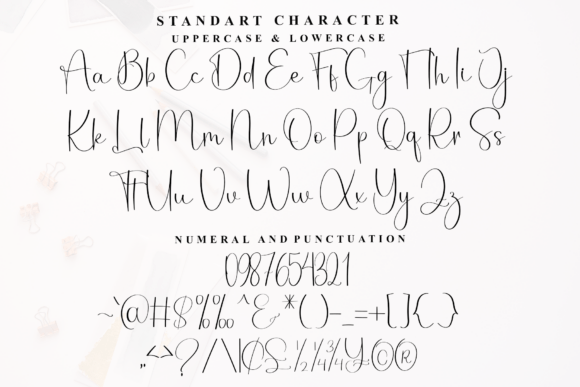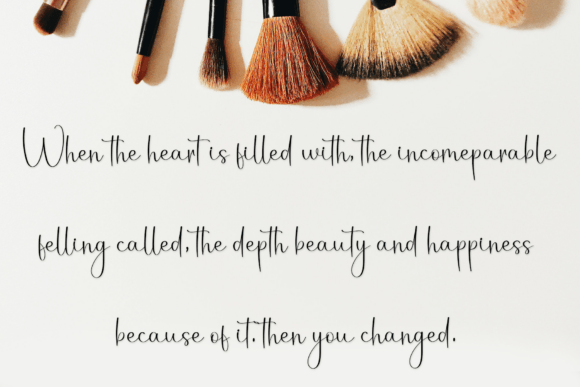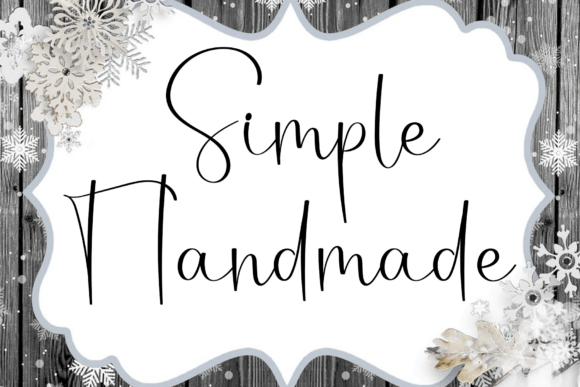
Introduction to Christmas Samantha Font Font
Fonts play a crucial role in design, and the Christmas Samantha Font font is a typeface that brings both character and versatility to any project. Whether you’re working on a branding project, a website, or a print design, the Christmas Samantha Font font offers a unique style that can elevate your work.
Christmas Samantha is a stylish and incredibly elegant script font.
It looks stunning on wedding invitations, thank you cards, quotes, greeting cards, logos, business cards and every other design which needs a handwritten touch This font is PUA encoded which means you can access all of the amazing glyphs and ligatures with ease.
Key Features of Christmas Samantha Font Font
Why Choose Christmas Samantha Font Font?
The Christmas Samantha Font font is more than just a typeface – it’s a design tool that helps you communicate your message with style and clarity. Its unique character set and versatile design make it suitable for a wide range of applications, from elegant invitations to bold headlines.
With its carefully crafted letterforms and balanced proportions, the Christmas Samantha Font font ensures readability and visual appeal across all mediums.
What makes Christmas Samantha Font font special?
The Christmas Samantha Font font stands out with its unique design, exceptional readability, and versatility across various design applications.